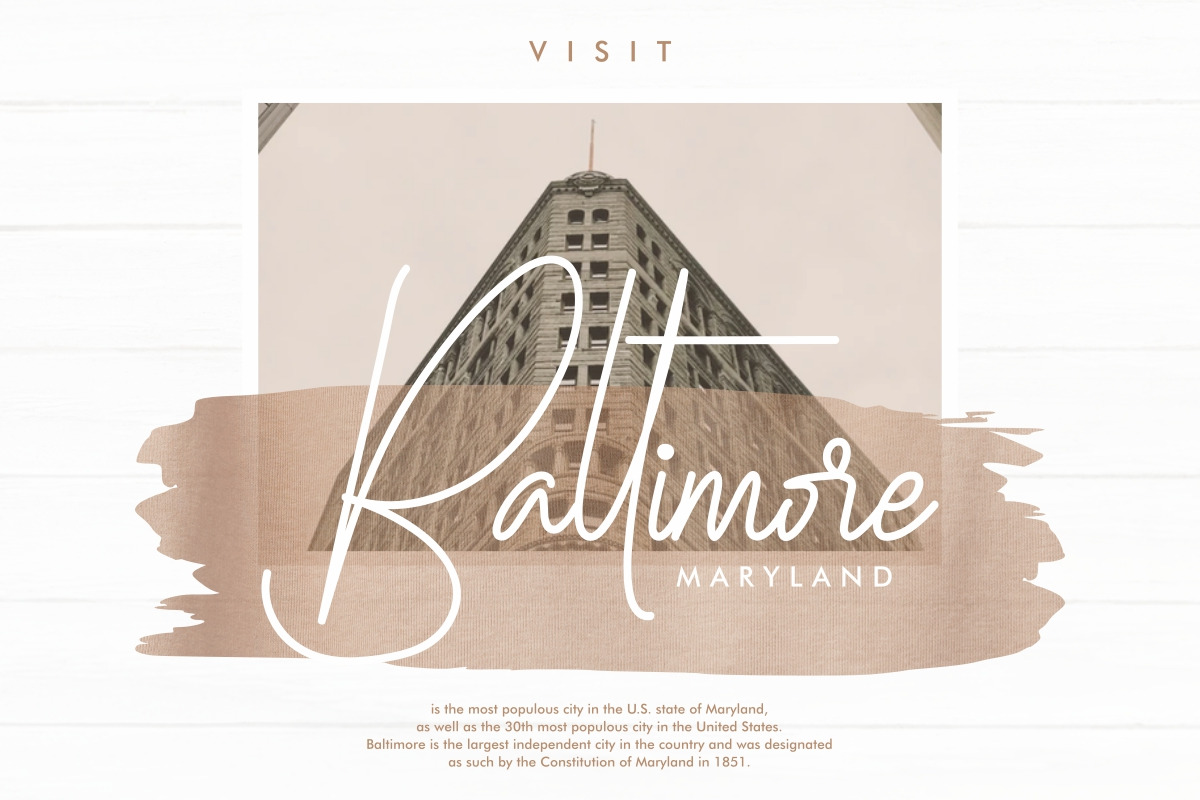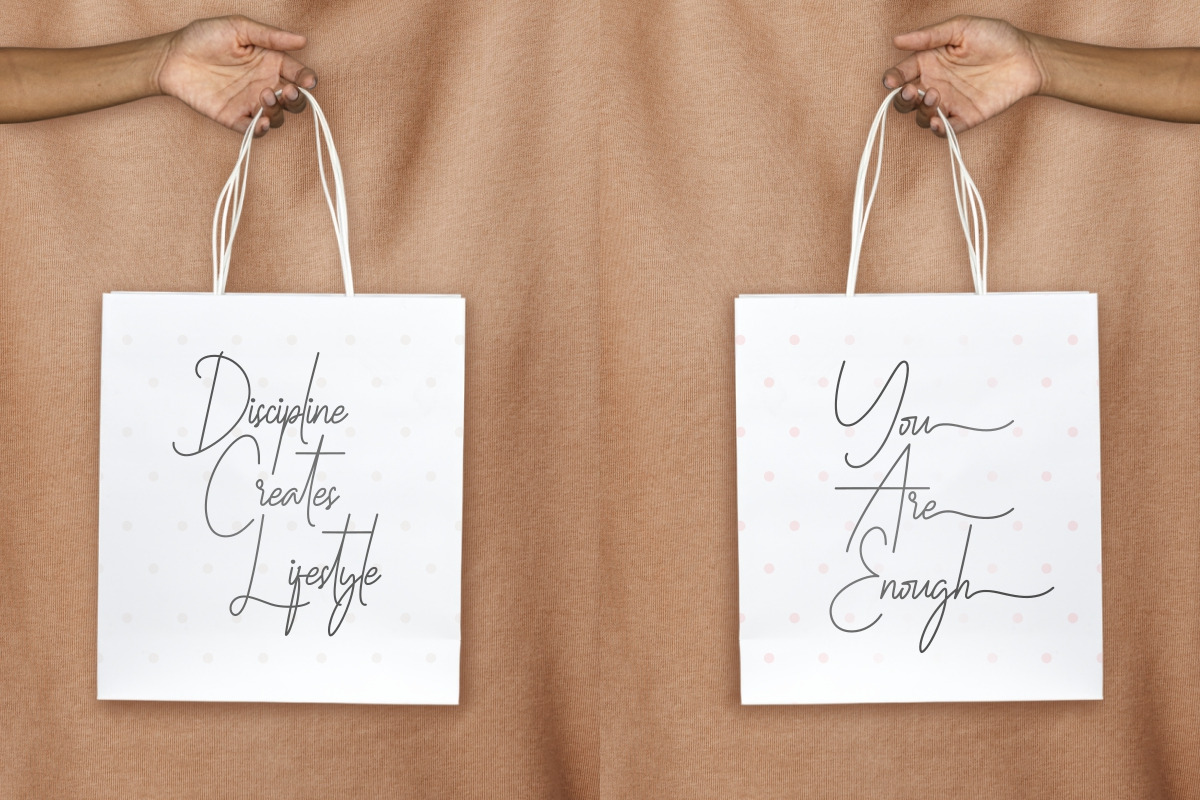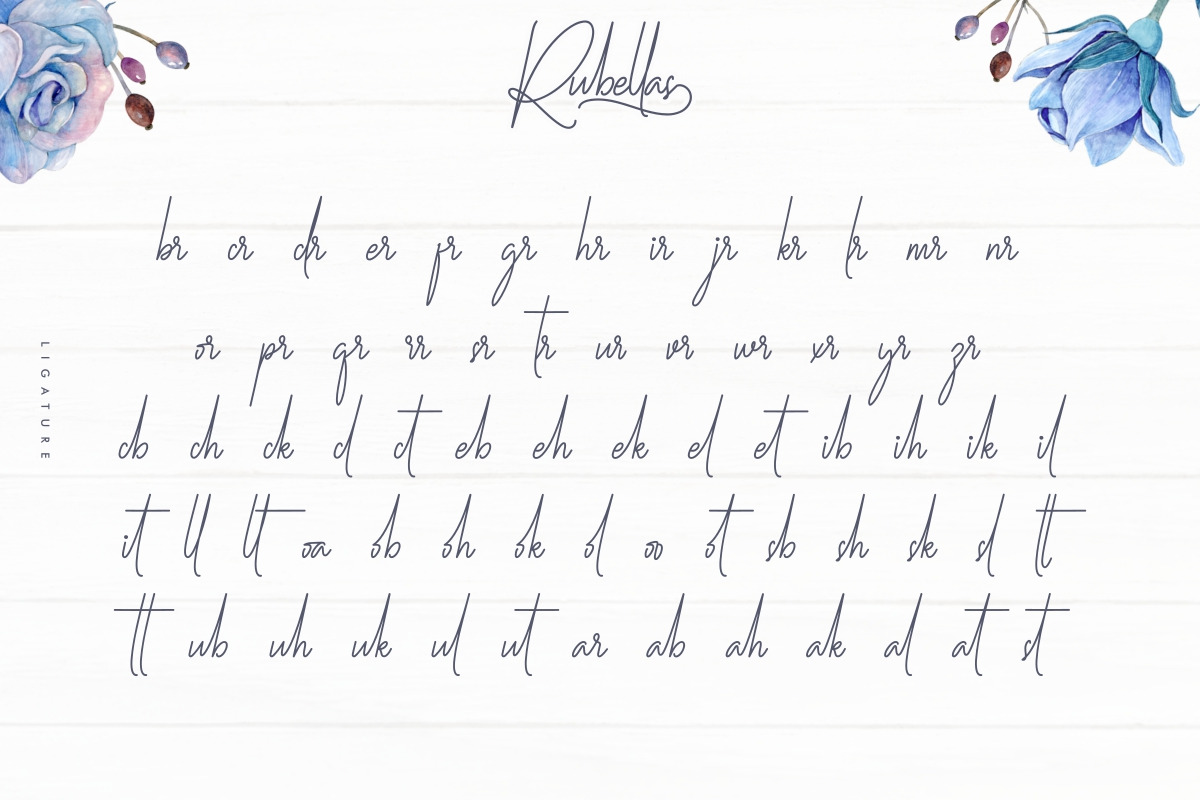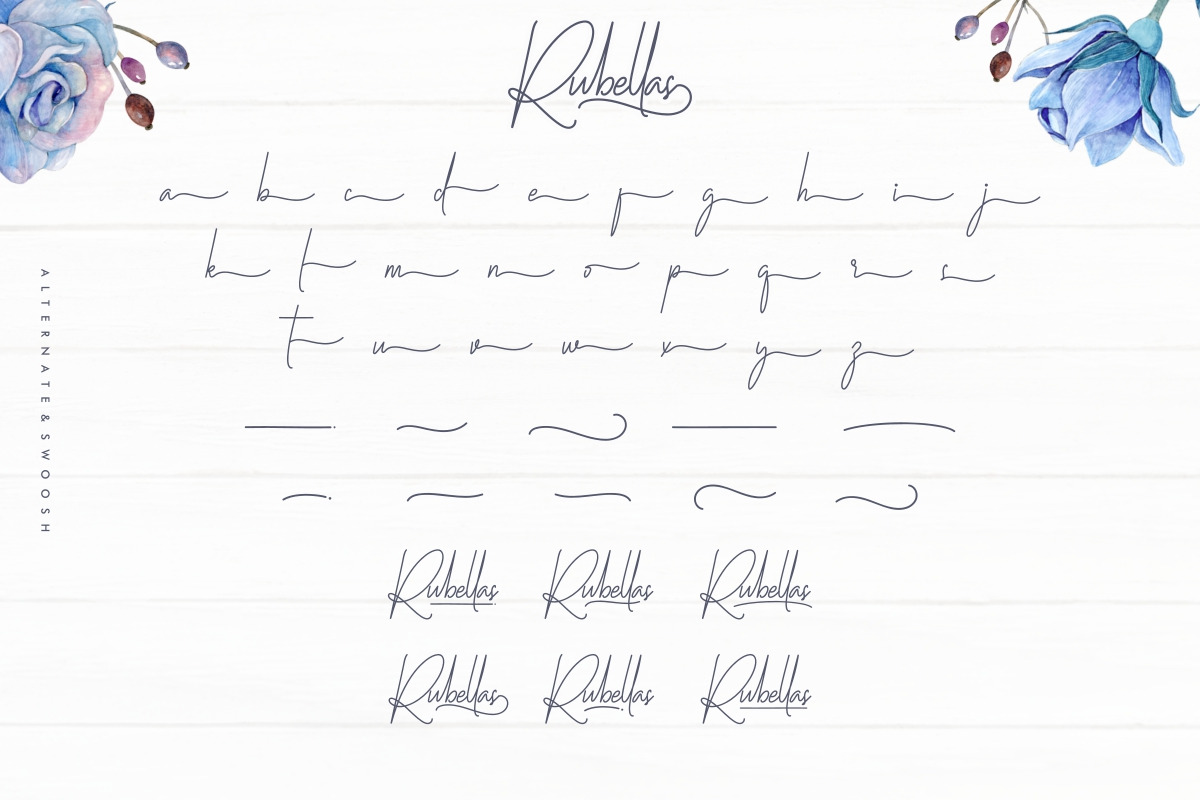
Rubellas Signature Handwritten Font
Rubellas Font is a signature script font handwriting style. Rubellas will be awesome for any of your special projects including : weddings, promotion, events, branding, advertising, magazine, shopping, signage, invitation, stationery, social media posts, product packaging, product designs, label, photography, watermark or and any projects that need handwriting style.